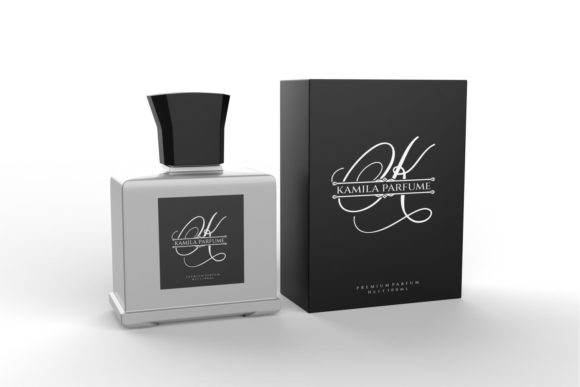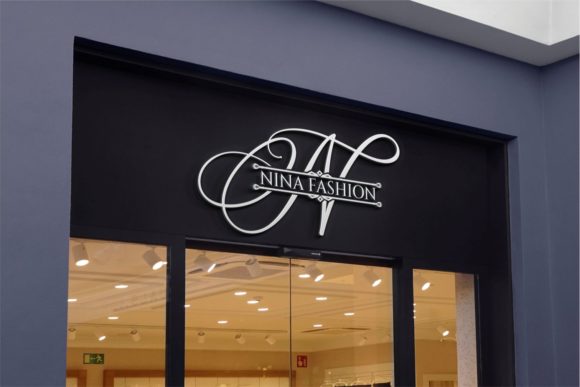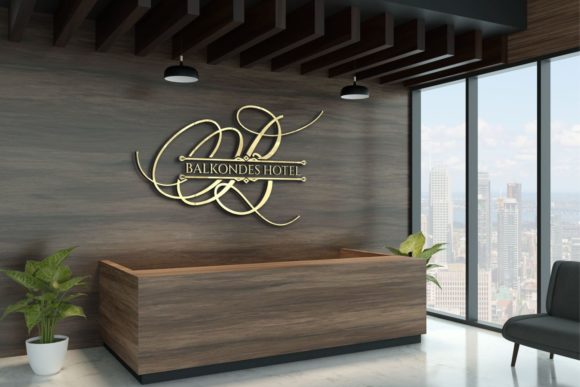
Madison Monogram Font
Madison Monogram is a beautiful combination of timeless elegance and authentic calligraphy in one display font. Get inspired by its unique look and create gorgeous stationery, romantic greeting cards and more!